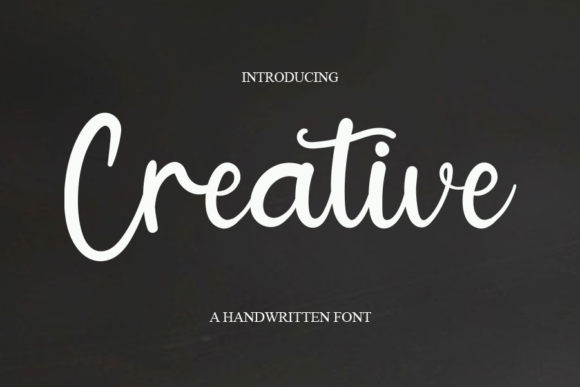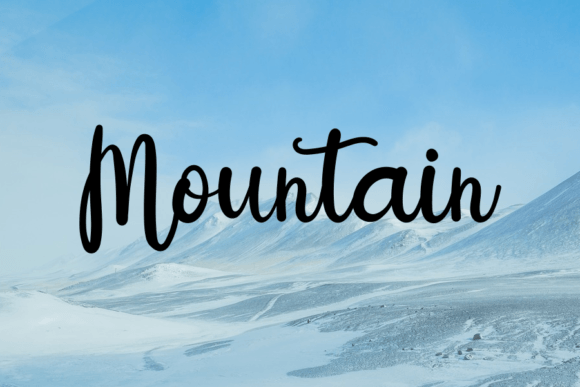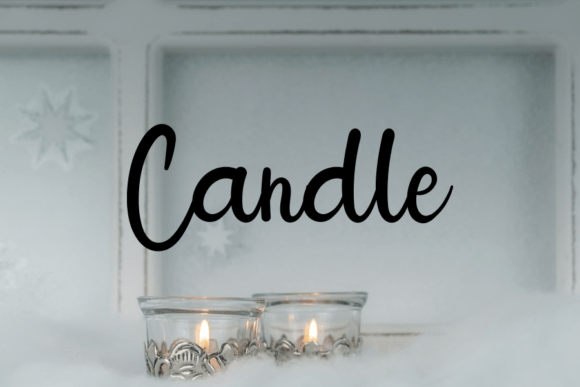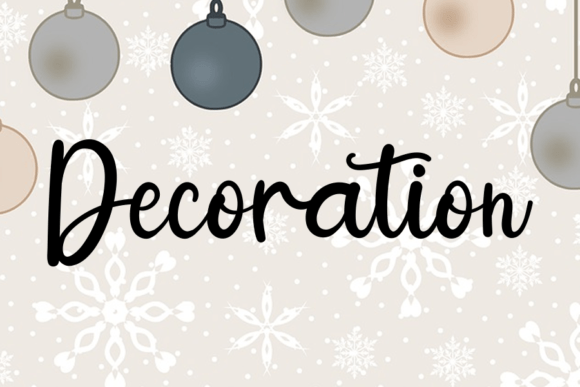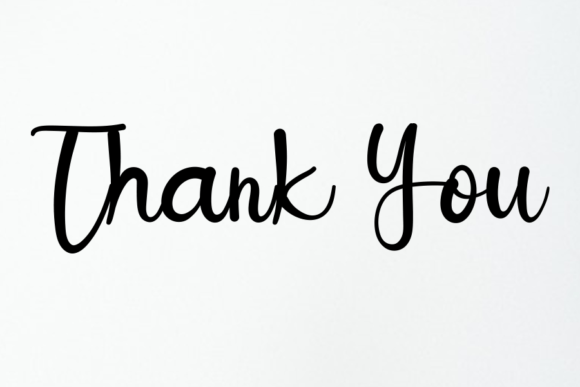
Creative Font
About Creative Font
Creative Font is a warm and welcoming handwritten typeface, perfect for designers and crafters who want to add a touch of personality to their work. Its smooth curves and natural flow make it incredibly versatile, ideal for anything from professional branding to handmade DIY projects. Whether you’re designing for print or digital use, CreativeFont helps your message come through with friendliness and charm.
Why Choose Creative Font?
This typeface stands out for its clean appearance and cheerful feel. It’s especially effective when used in:
• ✨ Craft Projects – From Cricut to scrapbooking, this font adds handmade charm
• 💌 Greeting Cards – Bring warmth and character to invitations and thank-you notes
• 📱 Digital Content – Social media graphics, blog headers, and digital ads
• 📦 Product Packaging – Great for handmade goods or artisanal product lines
• 📊 Presentations – Make slides feel less stiff and more approachable
Its rounded edges and clear structure ensure high readability while preserving the handwritten style that adds an emotional connection to your designs.
Features of Creative Font
• ✍️ Authentic Handwritten Look – Handcrafted feel with clean lines
• 🌍 Multilingual Support – Designed to handle multiple languages with ease
• 🔠 Great for Display or Text – Balanced for both large titles and small body text